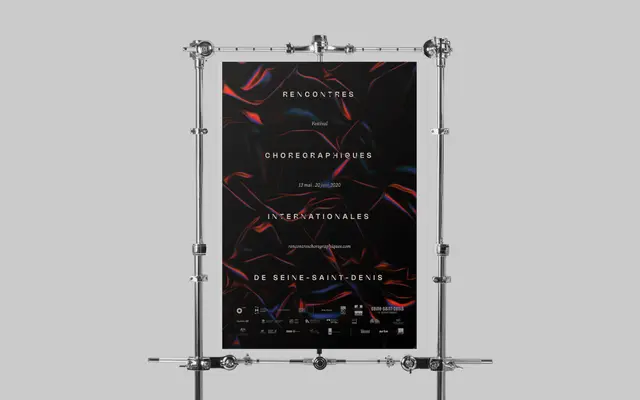
UltraSolar
An experimental display face by Adrien Midzic, built from a reworking of the Wasa typeface and styled after cosmic and astronomical themes.
Designed by Adrien Midzic and produced by Pizza Typefaces, UltraSolar takes the Wasa typeface as a starting point and pushes it into unusual territory with redrawn letterforms, a fresh approach to inktraps and a generous set of stylistic alternates including a Focal set intended for small-size reading. A collection of dingbats accompanies the main character set. The space and star-gazing concept runs through its presentation without overwhelming the practical character of the type itself.
UltraSolar features unusual letterforms with a distinctive take on inktraps, multiple stylistic sets and dingbats, placing it firmly in the experimental display category rather than any conventional text-type tradition.